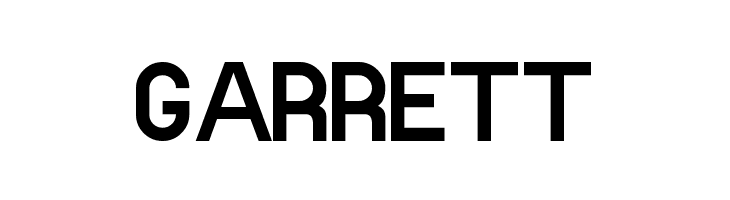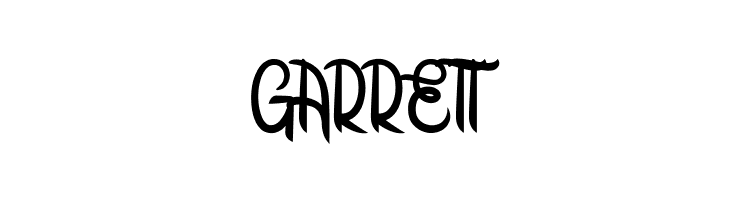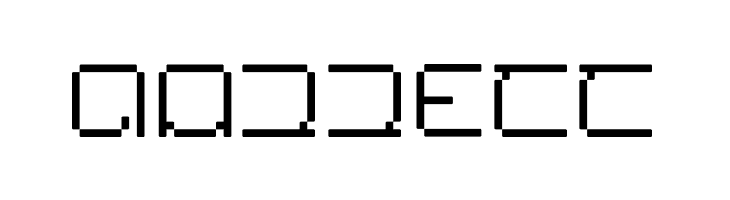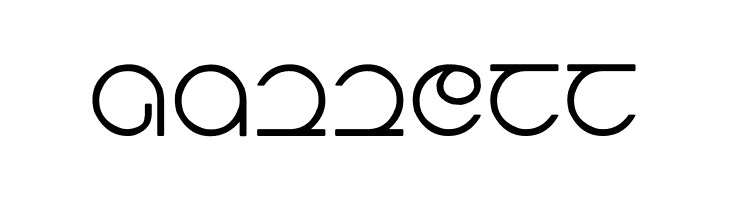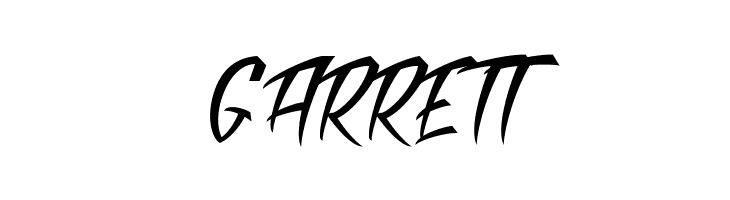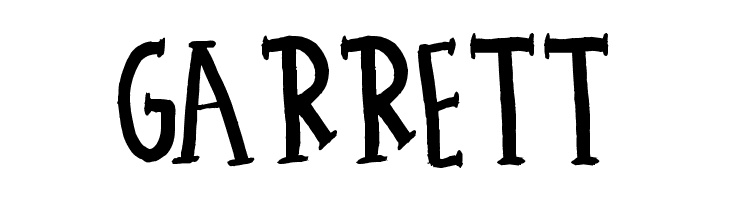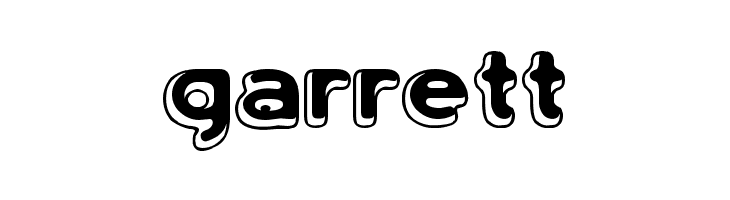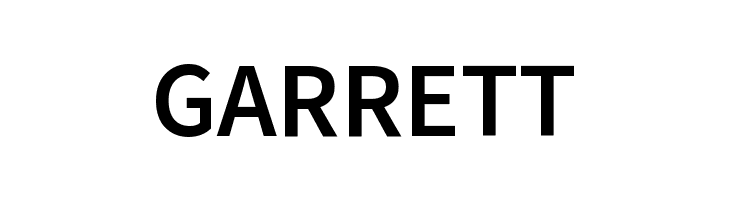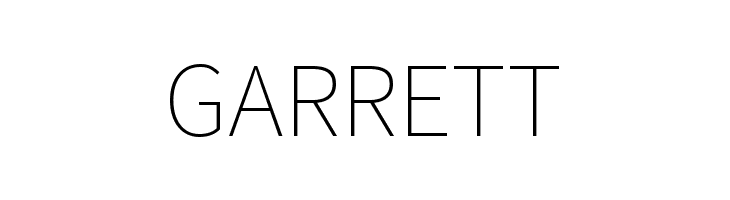
A bold, geometric font with a modern and clean design.
A bold, italic font with a modern and dynamic style.
A sleek, modern italic font with smooth curves and elegant slant.
An illustrative and decorative font with themed graphic characters.
A gothic, decorative font with spider web motifs and sharp, angular letterforms.
A sophisticated font with high contrast and elegant, slender strokes.
An elegant, high-contrast script font with flowing, ornate characters.
An elegant script font with flowing, cursive letterforms and decorative swashes.
A bold, blackletter-style font with dramatic, angular strokes and ornate detailing.
A modern sans-serif font with rounded edges and balanced spacing.
A modern, minimalist font with thin, uniform strokes and a sleek design.
A bold slab serif font with strong, block-like serifs and a cohesive design.
A rugged, textured font with an inline style and vintage appeal.
A bold, textured font with a rustic, handcrafted appearance.
A rugged, textured font with shadow effects and a vintage, handcrafted feel.
A playful, bold font with a bubble-like outline and rounded characters.
A bold, geometric font with a three-dimensional effect and strong, angular characters.
A playful, hand-drawn font with bold, rounded forms and whimsical curves.
A playful, handwritten font with exaggerated curves and loops.
A dynamic script font with sharp, angular strokes and a bold presence.
A bold, sans-serif font with a strong and modern appearance.
A bold, modern typeface with clean lines and geometric shapes.
A modern, clean sans-serif font with uniform stroke width and excellent readability.
A modern, light sans-serif font with clean lines and balanced spacing.
A modern sans-serif font with balanced proportions and clear legibility.
A clean, modern sans-serif font with excellent readability and balanced design.
A modern, semi-bold sans-serif font with clean lines and balanced proportions.
A rustic, hand-drawn font with bold, playful characters and uneven strokes.
A modern, rounded font with a playful and cohesive design.